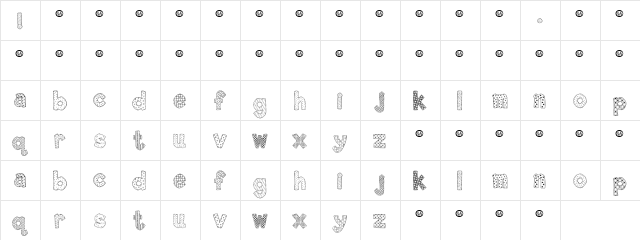
PC Patch Scraps Regular
Design Context for PC Patch Scraps Typeface
PC Patch Scraps is a composed and adaptable typeface that performs quietly and consistently across a wide range of design contexts.
Pro Tip: Use PC Patch Scraps in both headline and body roles to test its range before committing to a single application.